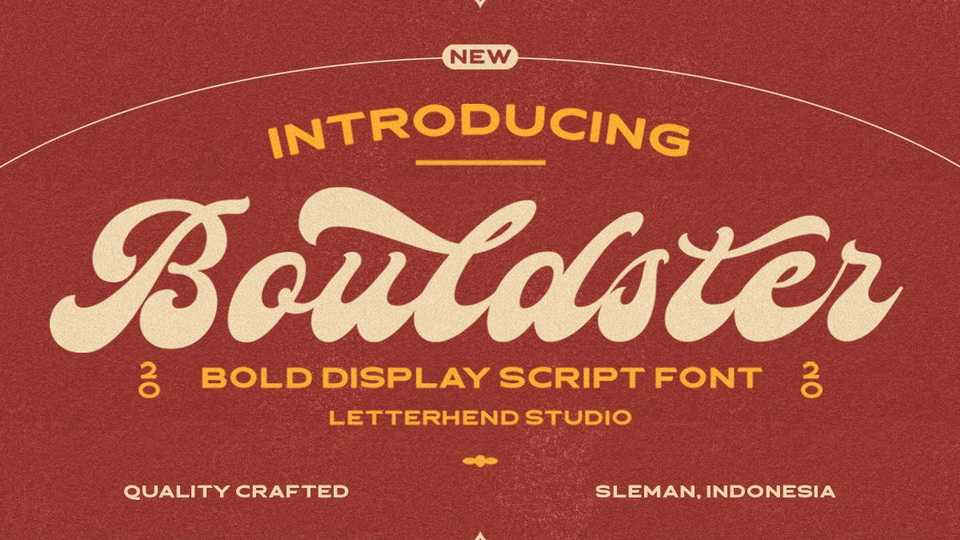
Download Bouldster font, a standout bold script with a touch of nostalgic look and feel. Inspired by 50s 60s signages, Boulder made to bring back the good ol’ days.